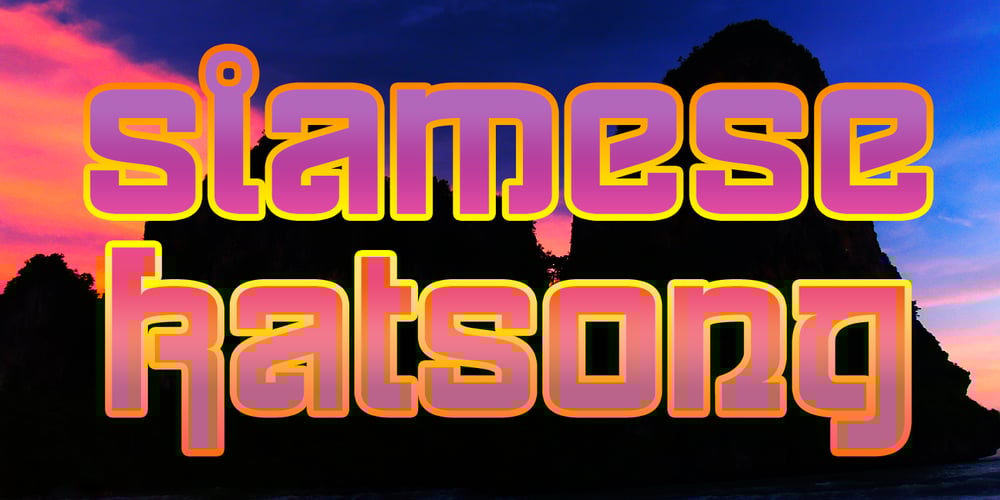
Siamese Katsong Pro Font Family was designed by Vic Fieger, Roger S. Nelsson and published by CheapProFonts. Siamese Katsong Pro contains 1 styles and family package options. A faux Thai font – but not over the top, just stylishly hinting at the foreign script. I have introduced lots of alternate glyphs, so it now has both lower- and uppercase letterfoms. Perfect for that travel brochure, ad or restaurant menu – in many languages. Vic Fieger simply says: “A font based on a boldface sign in Thai”. ALL fonts from CheapProFonts have very extensive language support: They contain some unusual diacritic letters (some of which are contained in the Latin Extended-B Unicode block) supporting: Cornish, Filipino (Tagalog), Guarani, Luxembourgian, Malagasy, Romanian, Ulithian and Welsh. They also contain all glyphs in the Latin Extended-A Unicode block (which among others cover the Central European and Baltic areas) supporting: Afrikaans, Belarusian (Lacinka), Bosnian, Catalan, Chichewa, Croatian, Czech, Dutch, Esperanto, Greenlandic, Hungarian, Kashubian, Kurdish (Kurmanji), Latvian, Lithuanian, Maltese, Maori, Polish, Saami (Inari), Saami (North), Serbian (latin), Slovak(ian), Slovene, Sorbian (Lower), Sorbian (Upper), Turkish and Turkmen. And they of course contain all the usual “western” glyphs supporting: Albanian, Basque, Breton, Chamorro, Danish, Estonian, Faroese, Finnish, French, Frisian, Galican, German, Icelandic, Indonesian, Irish (Gaelic), Italian, Northern Sotho, Norwegian, Occitan, Portuguese, Rhaeto-Romance, Sami (Lule), Sami (South), Scots (Gaelic), Spanish, Swedish, Tswana, Walloon and Yapese.